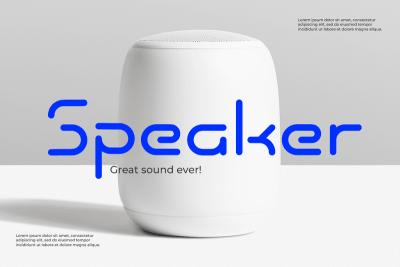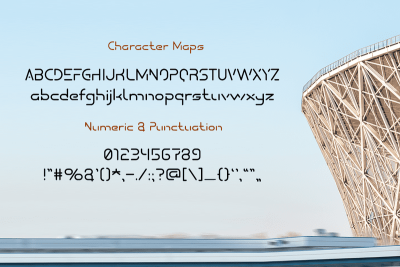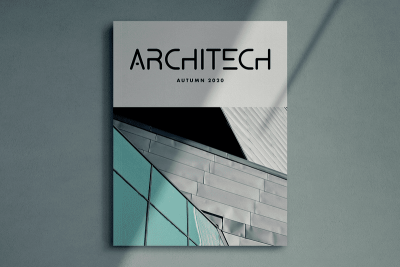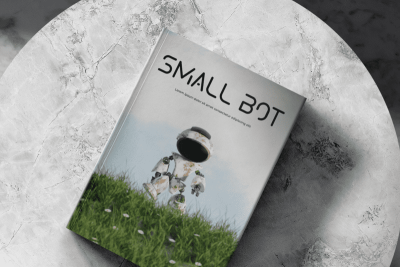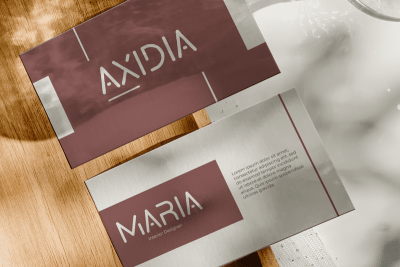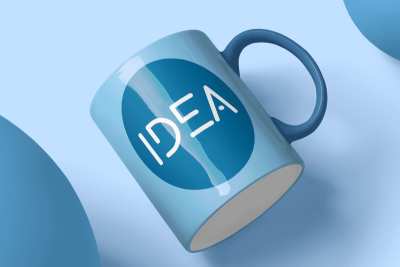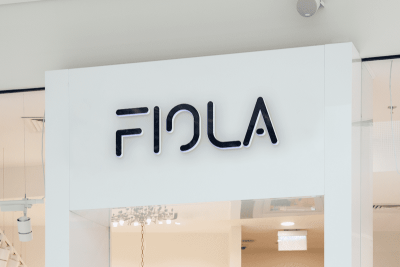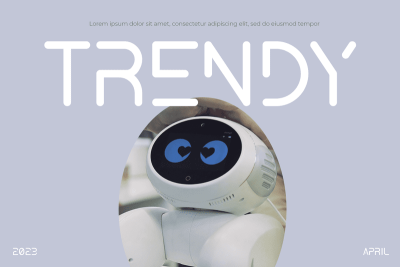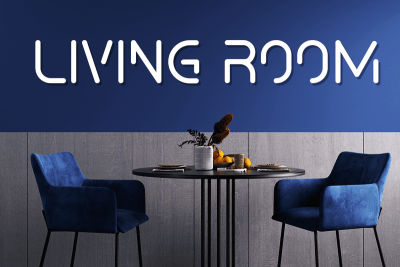
Futuristic Font Gharisun
Gharisun
Futuristic Font Gharisun brings a sleek, innovative touch to modern design projects. With its clean lines, geometric structure, and minimalistic appeal, Gharisun stands out as the ideal choice for futuristic and tech-forward visuals. Whether you’re creating branding for technology startups, sci-fi-themed posters, or digital interfaces, this font helps you capture a look of progress and innovation effortlessly.
Designed to meet the demands of creatives in technology, gaming, and entertainment, Gharisun offers a refined blend of style and functionality. Its bold yet minimal design ensures maximum readability while maintaining a futuristic aesthetic. Gharisun excels across platforms—whether you use it in digital media, print designs, or immersive UI/UX projects. Its versatility allows you to experiment without sacrificing consistency or quality.
Why This Font Elevates Your Designs
Gharisun seamlessly combines modern simplicity with futuristic charm. Each character features carefully crafted lines and smooth curves, giving the font a dynamic flow. This makes it an excellent option for headlines, logos, product packaging, and other display applications where visual impact is key. Its distinctive design guarantees that your work stands out, especially in competitive markets that demand bold and original solutions.
The font’s futuristic appeal also resonates well with tech-savvy audiences. Whether you’re developing promotional content for apps, sci-fi branding campaigns, or gaming visuals, Gharisun provides a fresh and modern tone. Its versatility allows designers to integrate it into various projects—creating a consistent and professional look across digital and print mediums.
Moreover, Gharisun performs exceptionally well across different screen sizes and resolutions. With its clean letterforms and optimized readability, it ensures a seamless experience for both mobile users and desktop viewers. Designers can rely on Gharisun to maintain clarity, regardless of where their work is displayed.
Stand Out with Futuristic Font Gharisun
Futuristic Font Gharisun isn’t just a typeface; it’s a creative tool for those who want to push design boundaries. Its sleek and modern appearance reflects innovation, making it ideal for projects that aim to inspire, engage, and captivate. By incorporating Gharisun into your designs, you signal to your audience that your brand embraces the future.
Gharisun is designed to empower creatives with the freedom to experiment. Its adaptability suits everything from bold, attention-grabbing headlines to clean and subtle body text. Tech brands, futuristic product launches, and sci-fi enthusiasts can all leverage this font to bring their vision to life. It enhances design quality and ensures your projects remain visually striking and professional.
Whether you’re working on tech advertisements, UI dashboards, futuristic event posters, or digital branding, Gharisun gives your visuals a sophisticated and forward-thinking edge. It’s a font that speaks the language of the future, making it a must-have for today’s designers.